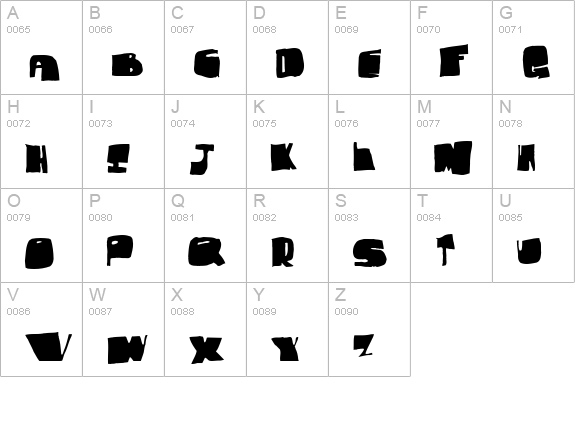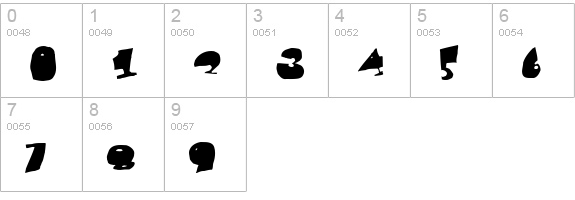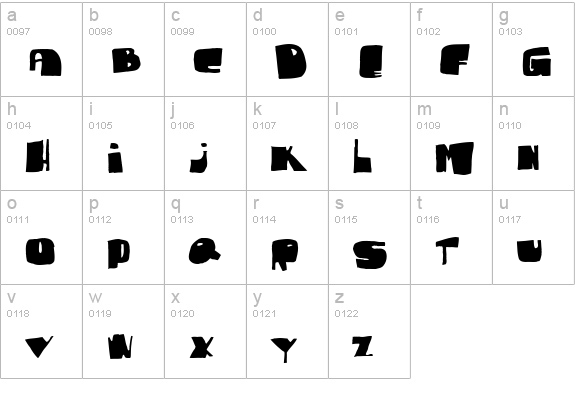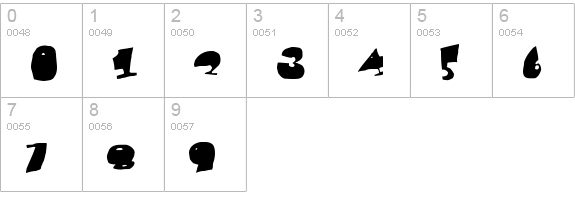
Fat Sam Font Details
Fat Sam is a bold and eye-catching display font that is sure to make a statement in any design project. With its thick, rounded letterforms and quirky charm, Fat Sam is perfect for headlines, posters, logos, and more. This playful font exudes a sense of fun and whimsy, making it ideal for projects that need a touch of personality. Best of all, Fat Sam is completely free to download at FontsMarket.com. Whether you're a professional designer looking for a unique typeface or a hobbyist experimenting with different fonts, Fat Sam is a versatile and accessible option. Don't miss out on the opportunity to add this distinctive font to your collection today!